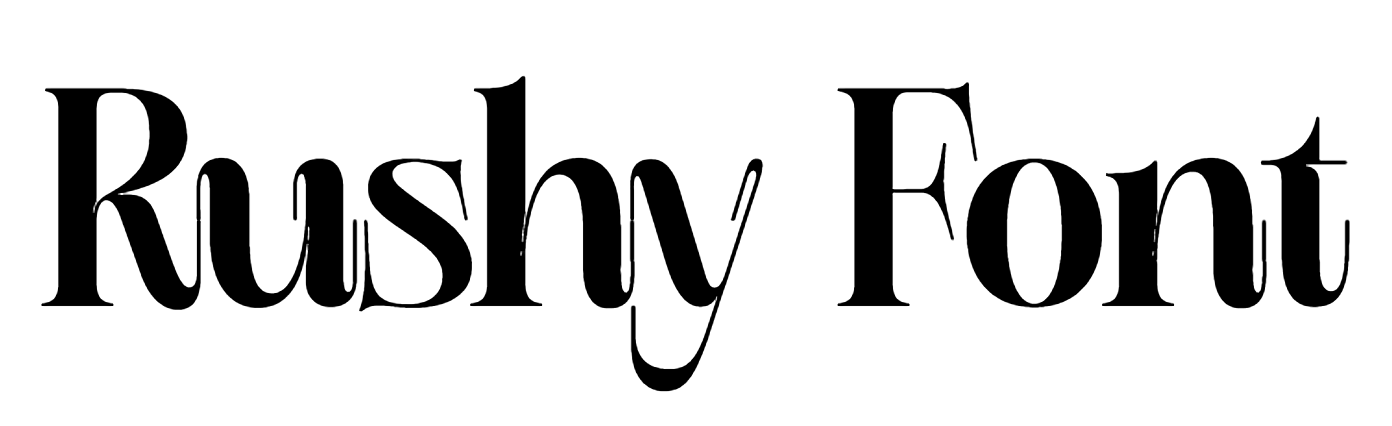
Rushy Font for personal use
Rushy Font for personal use is a serif font made by Sapto Susilo (2026). It has the traditional, bookish feel of type you see in novels, newspapers and long-established brands. You can download it for free and test it with your own words in the preview above.
You get every letter from A to Z in both cases and all the numbers from 0 to 9, which means Rushy Font for personal use can handle full sentences, dates and prices. Everyday marks like &, !, ? and @ are there too. Thanks to its accented letters, it also works for Spanish, French, German, Portuguese and Italian, not just English.
Think of Rushy Font for personal use for book covers, magazine headlines and classic branding. Serif fonts shine in headlines and printed text. For long paragraphs on phones, check that it still reads well at small sizes.
Rushy Font for personal use was designed by Sapto Susilo. The copyright line inside the font is dated 2026.